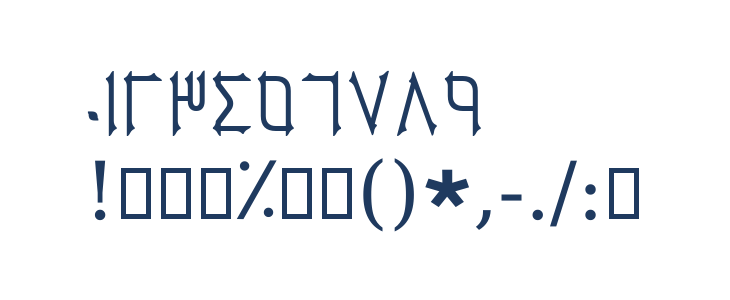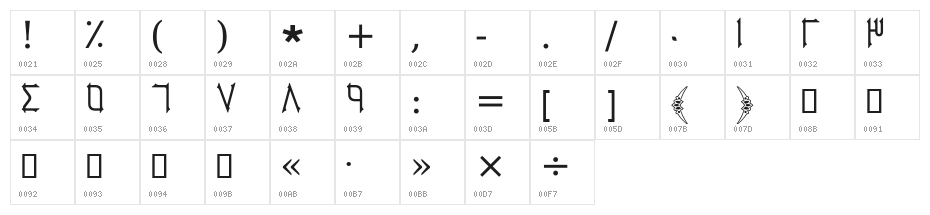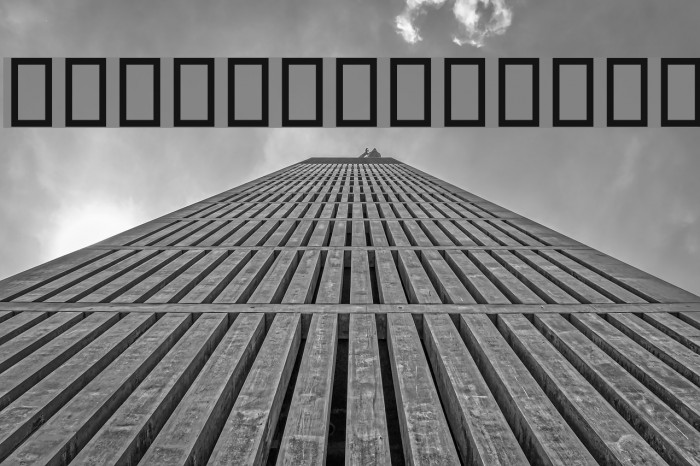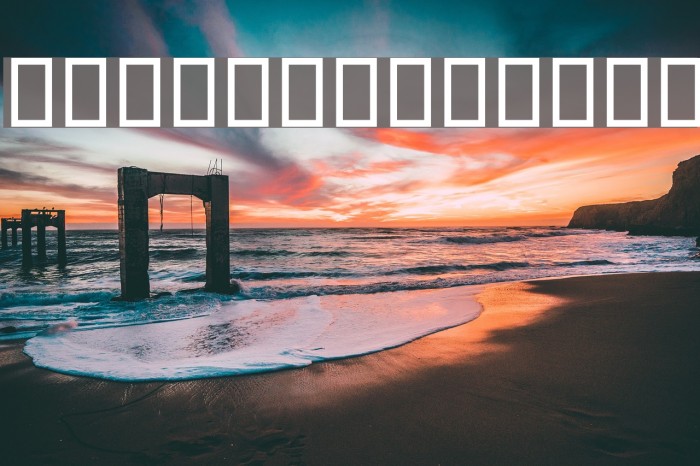
Hadis Font
Hadis Description
This font features a bold and striking design with sharp, angular edges and a distinct Gothic influence. Each character is crafted with pointed serifs and a strong vertical emphasis, creating a dramatic and imposing appearance. The font's unique style is reminiscent of medieval script, making it ideal for projects that require a historical or fantasy theme. The numerals and special characters maintain the same bold and angular aesthetic, ensuring consistency across all text elements. This font is particularly well-suited for display purposes, where its intricate details can be appreciated.
| Proposed Projects | Ideal for fantasy book covers, historical event posters, or themed video game titles. |